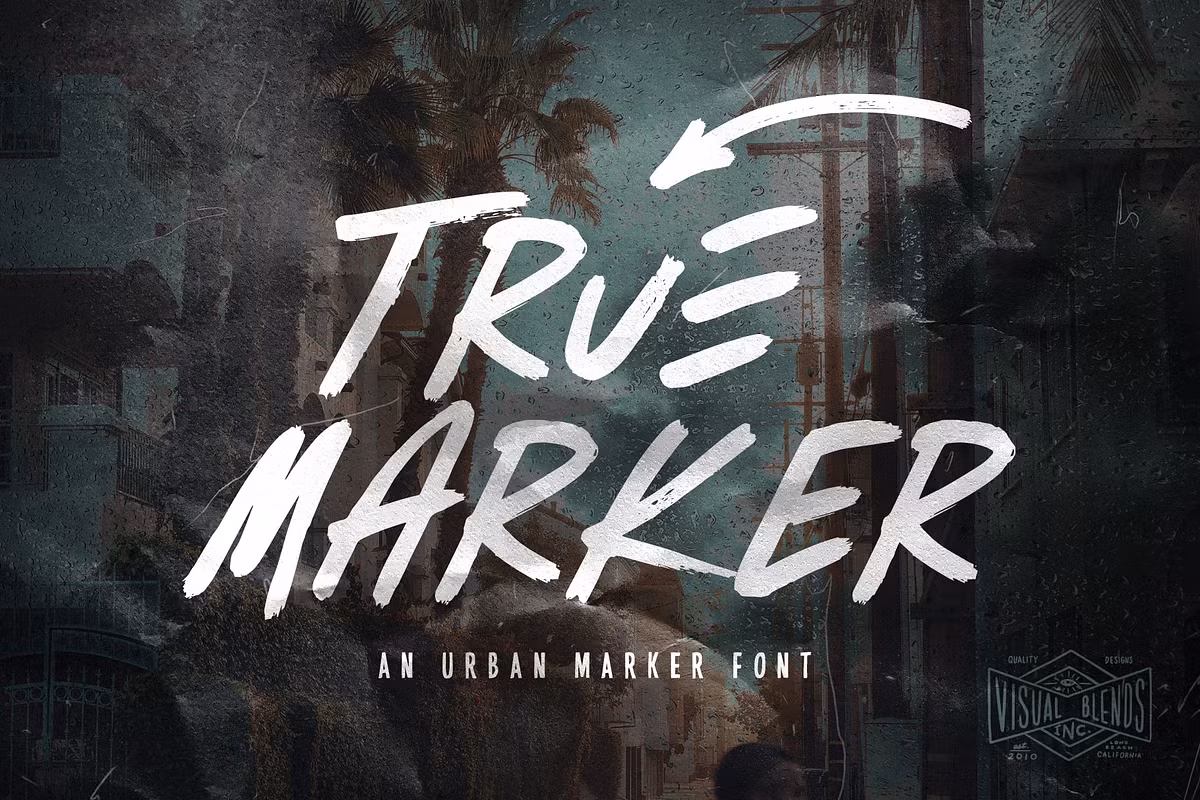
True Marker Font Free Download is a bold, hand-drawn typeface that captures the authentic look of real marker lettering. With its raw texture, uneven strokes, and energetic personality, this font is perfect for posters, street-style branding, event flyers, music covers, and any design that needs a loud, handmade feel.
True Marker Font Free Download brings a natural, expressive edge to your typography. Whether you’re creating standout headlines, custom merchandise, or edgy social media graphics, this font adds attitude and authenticity. Download it today and give your next project a punch of bold, marker-drawn style.